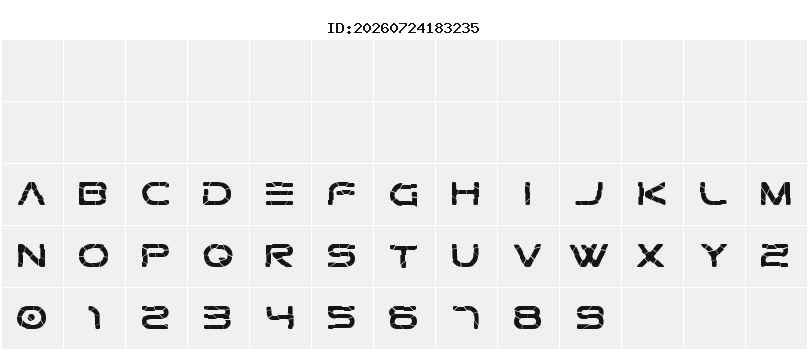
Gtek Broken Preview
• Font Name: Gtek Broken
• Full Font Name: Gtek Broken
• Version: Version 1.00 October 3, 2013, initial release
• Designer: Carlos Matteoli a.k.a. Qbotype
About Gtek Broken.ttf
Gtek Broken.ttf is a modern, elegant sans-serif font designed for ultimate readability and visual harmony. Perfect for branding, headlines, web design, and print materials.